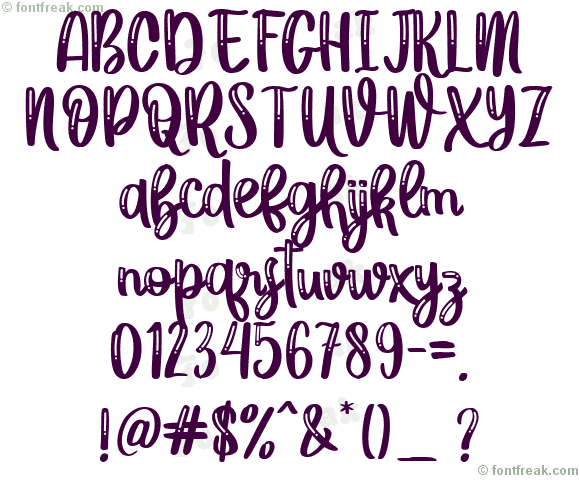
la fiesta
The "La Fiesta" font, designed by Burhan Afif, is a captivating display typeface that exudes a playful and festive spirit. This font falls into the decorative category, characterized by its whimsical, hand-drawn appearance. The stroke weight is varied, providing a lively contrast between thick and thin lines, which adds to its unique charm. The letters feature delightful curves and intricate loops, making each character visually engaging. The spacing is well-balanced, ensuring readability while still embracing a casual, friendly vibe.
La Fiesta is an excellent choice for various creative projects. Its cheerful style makes it particularly suitable for wedding invitations, where it can convey a sense of joy and celebration. It also shines in creating vibrant restaurant menus, inviting customers to indulge in a lively dining experience. Additionally, this font works wonderfully for event flyers and posters, capturing the essence of festivities and gatherings. Graphic designers looking to add a touch of personality to branding materials will find La Fiesta to be an ideal option. Content creators and small business owners can utilize this font to bring a sense of warmth and approachability to their online presence.
What sets the La Fiesta font apart is its ability to evoke a sense of joy and celebration through its playful design. The combination of its whimsical strokes and friendly curves makes it versatile for both formal and casual applications. With the La Fiesta font free download, you can easily incorporate this enchanting typeface into your projects, allowing your designs to stand out with a touch of fun and creativity. Whether you're designing for a special occasion or seeking to add a unique flair to your branding, La Fiesta is sure to delight and inspire.